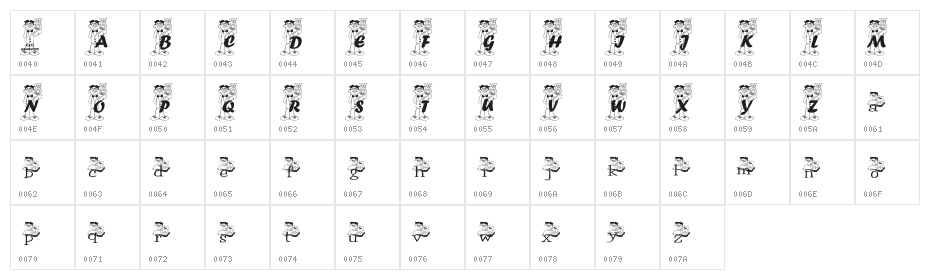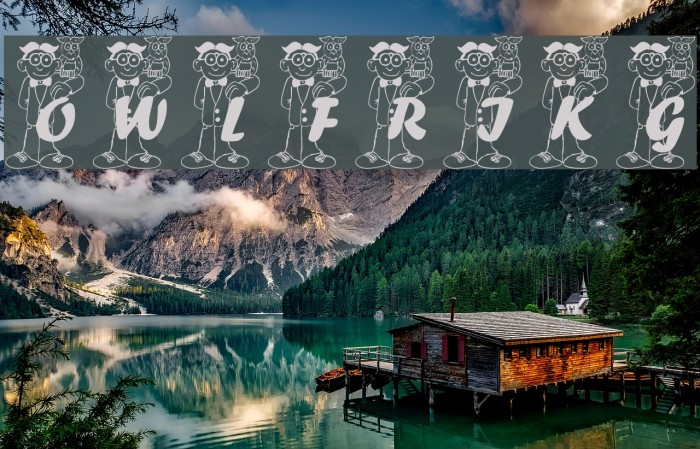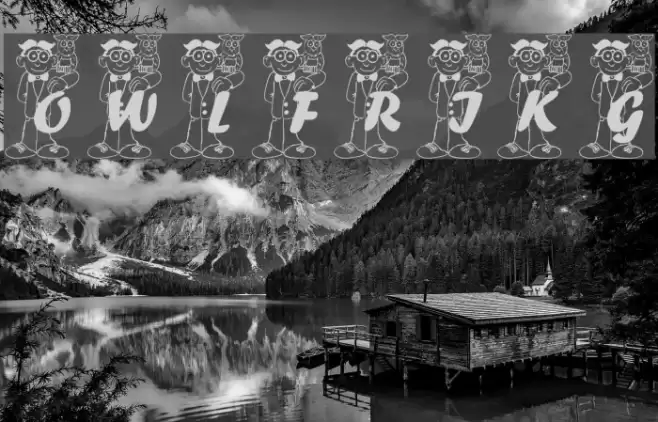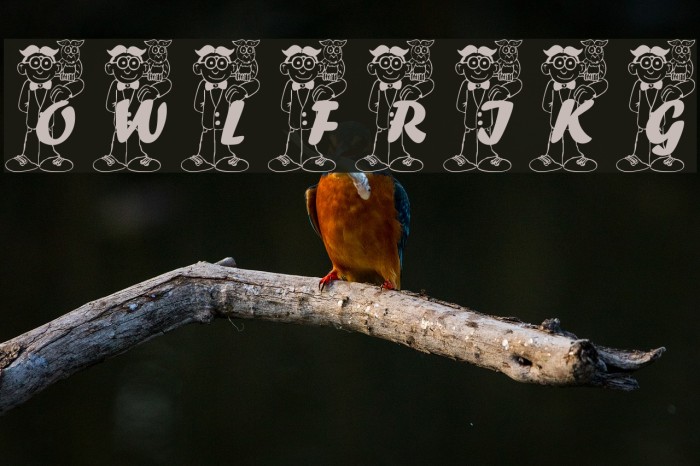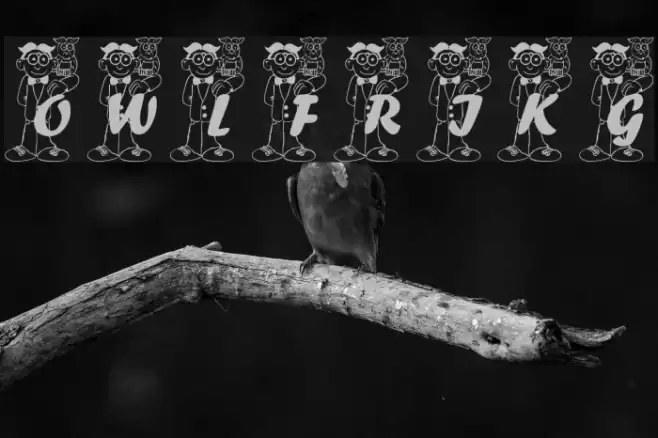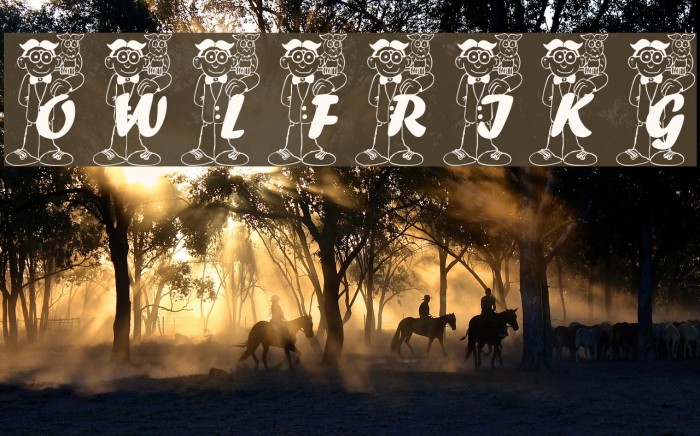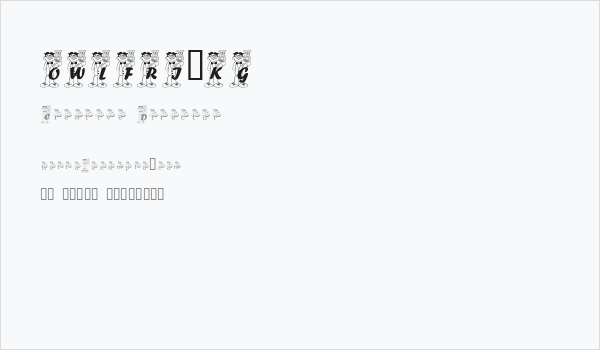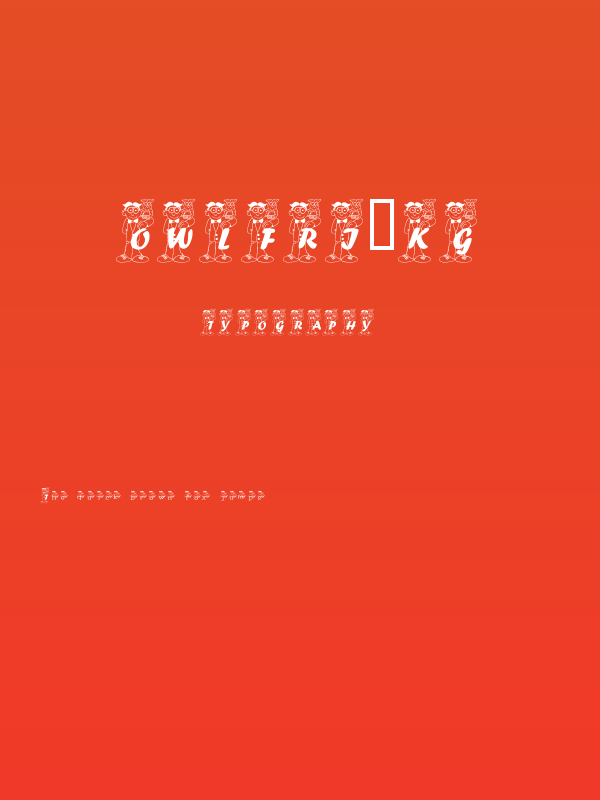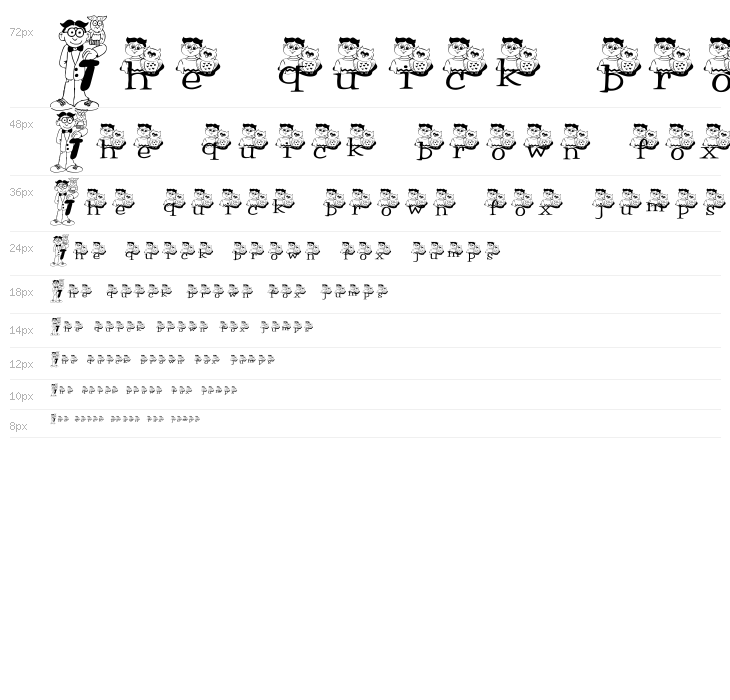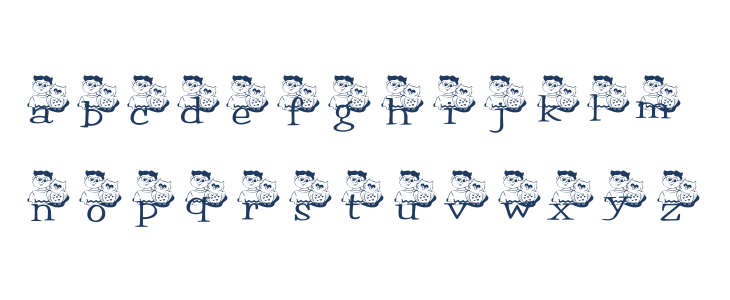
OWLFRI_KG Font
OWLFRI_KG Description
This font features a playful and whimsical design, incorporating cartoon characters alongside each letter. The characters are depicted in a fun, animated style, adding a unique and entertaining element to the text. The letters themselves are bold and clear, with a slight slant that gives them a dynamic appearance. The combination of the cartoon figures and the bold lettering creates a lively and engaging visual effect, making it ideal for projects that require a touch of humor and creativity.
| Proposed Projects | Ideal for children's books, comic strips, playful branding, and educational materials. |